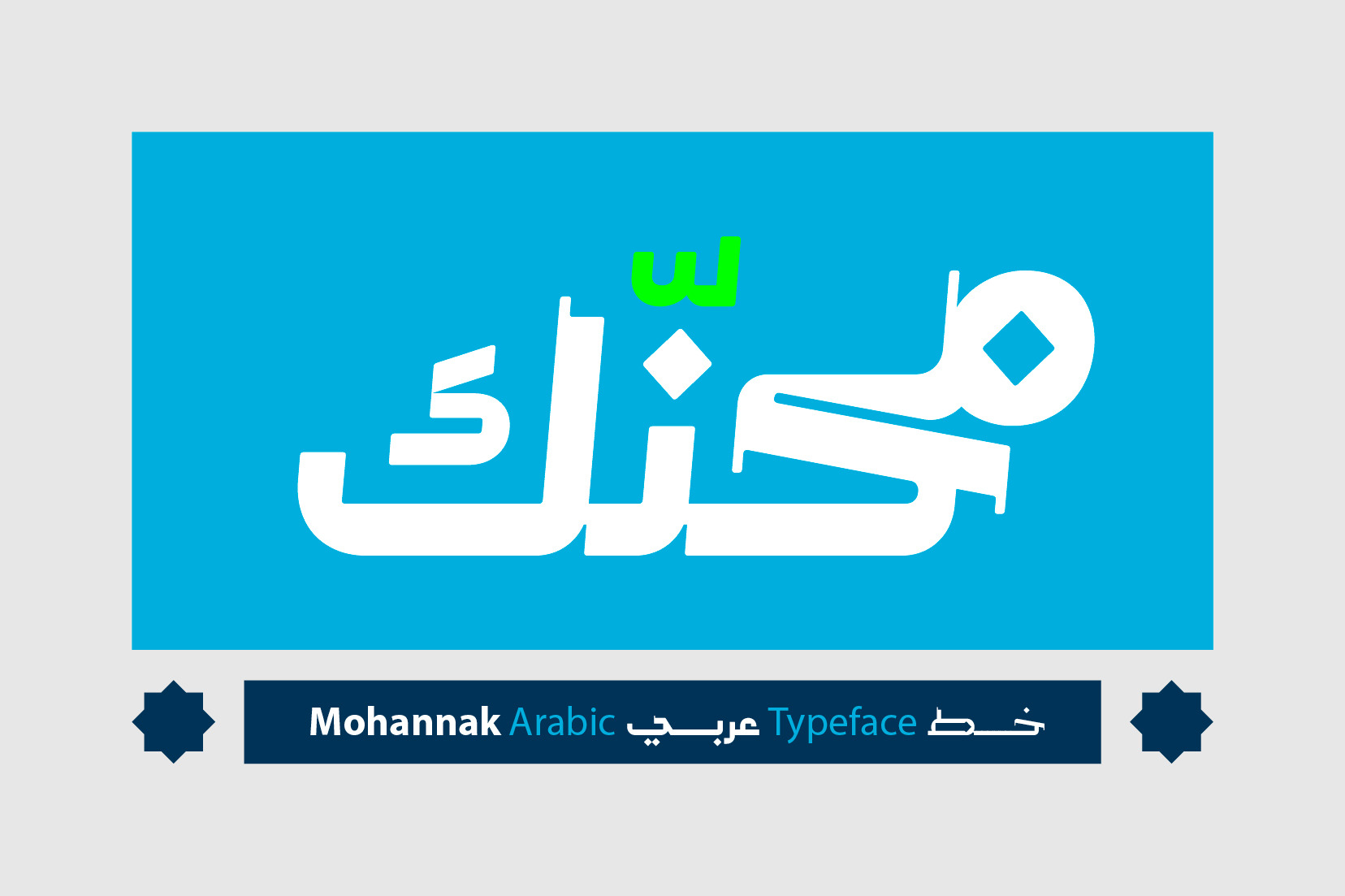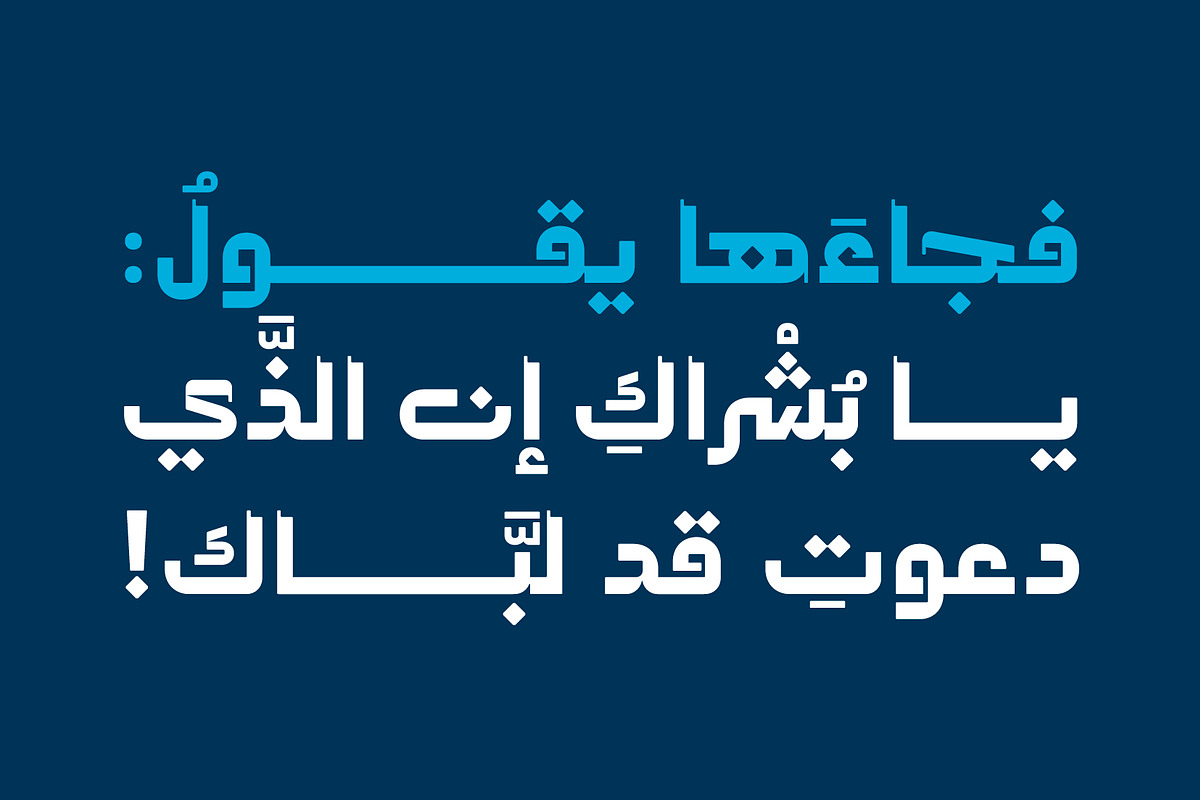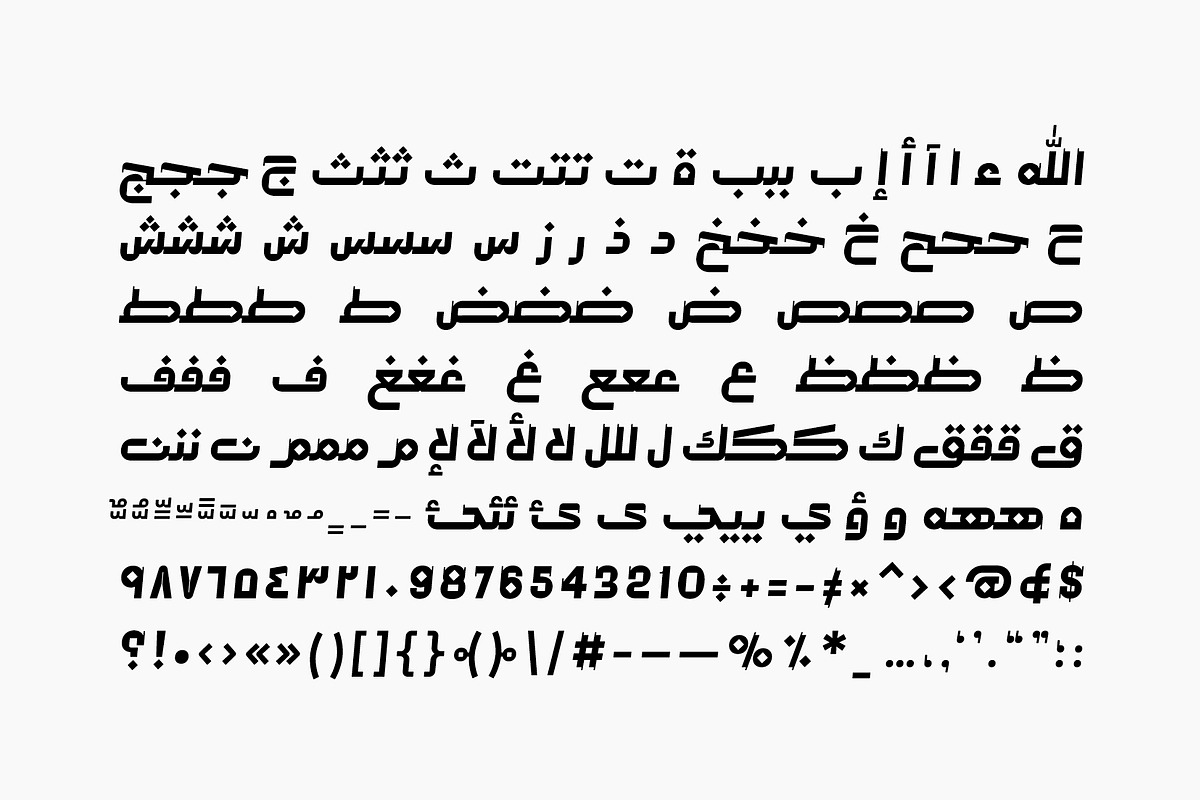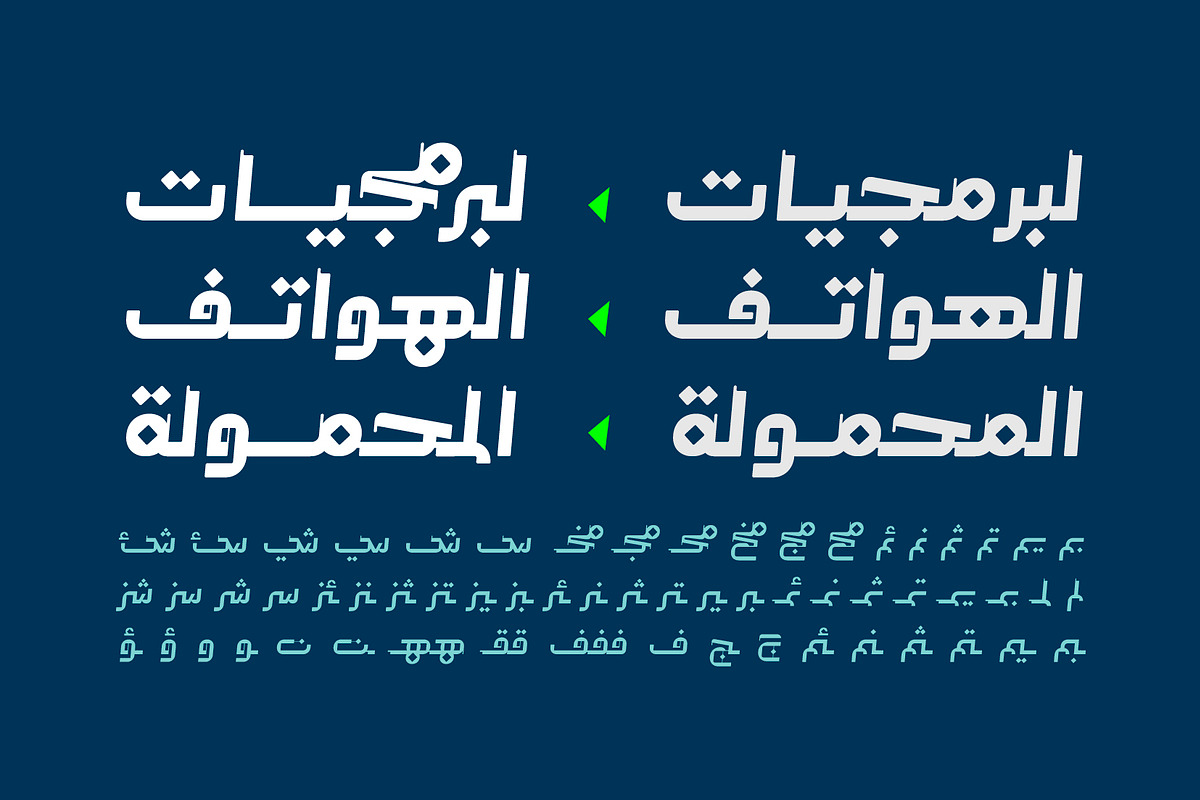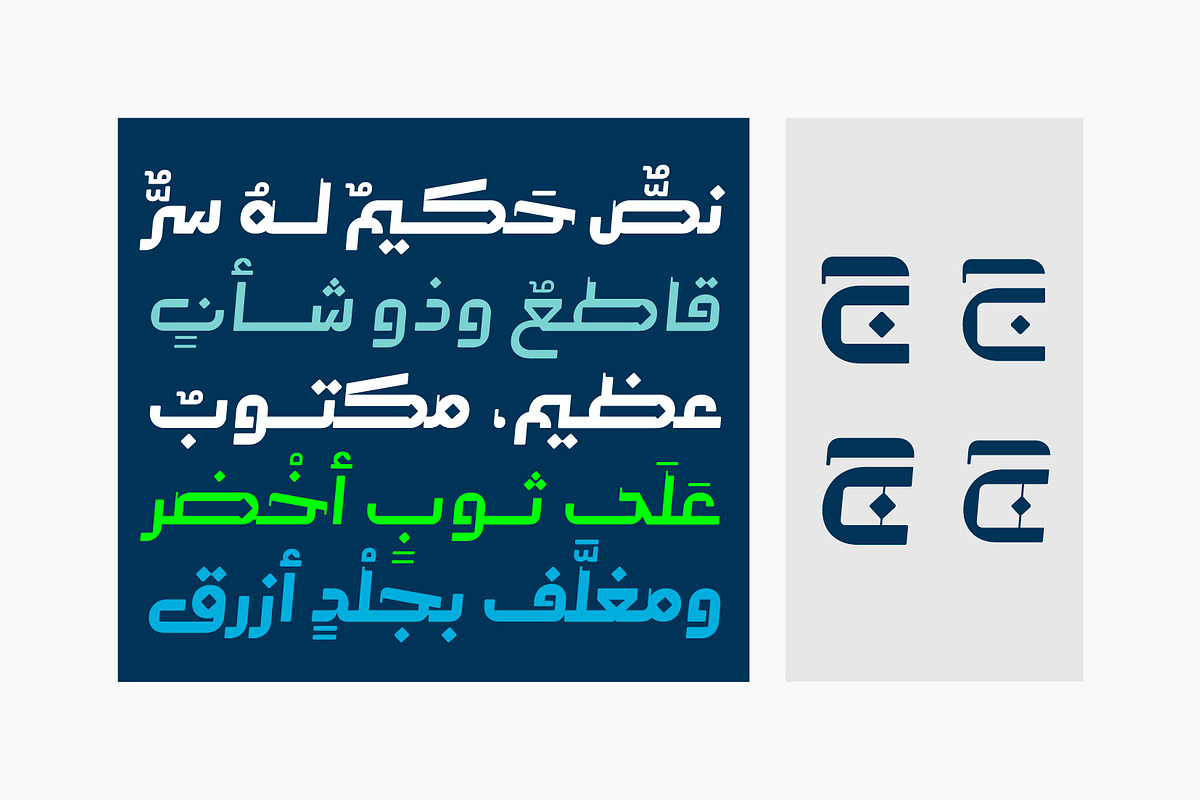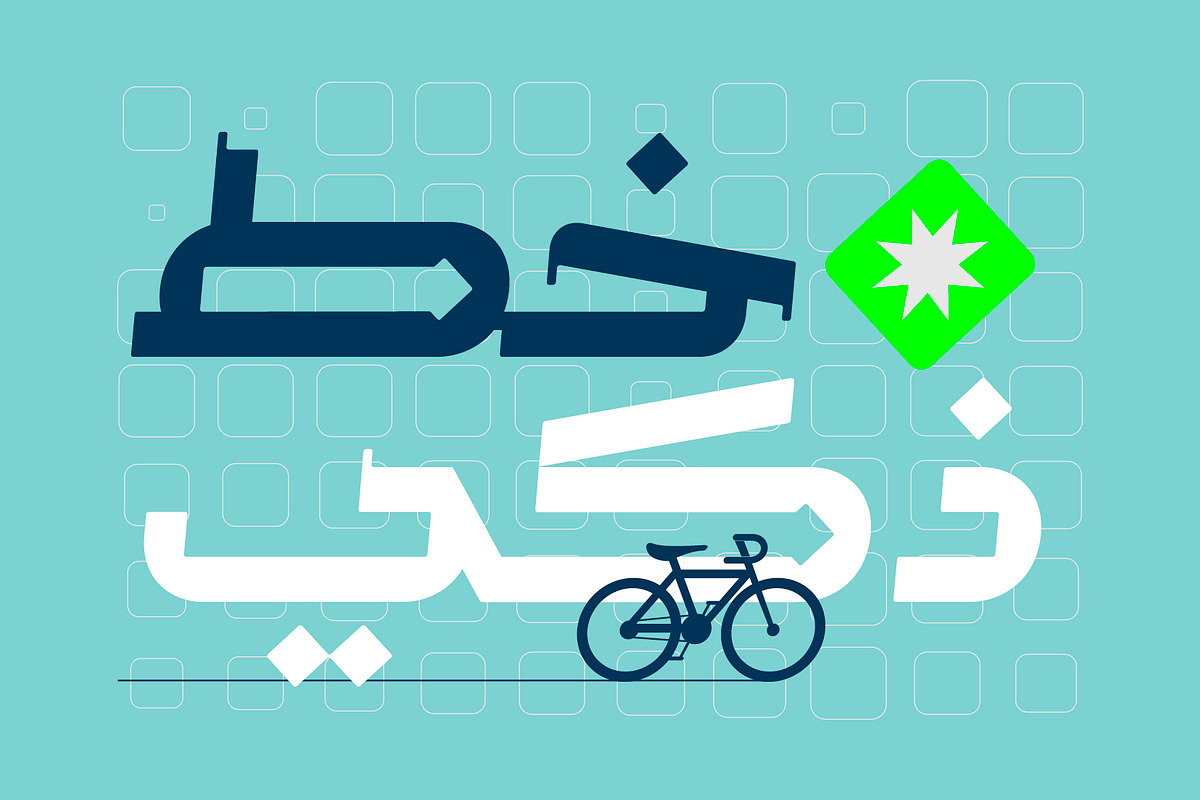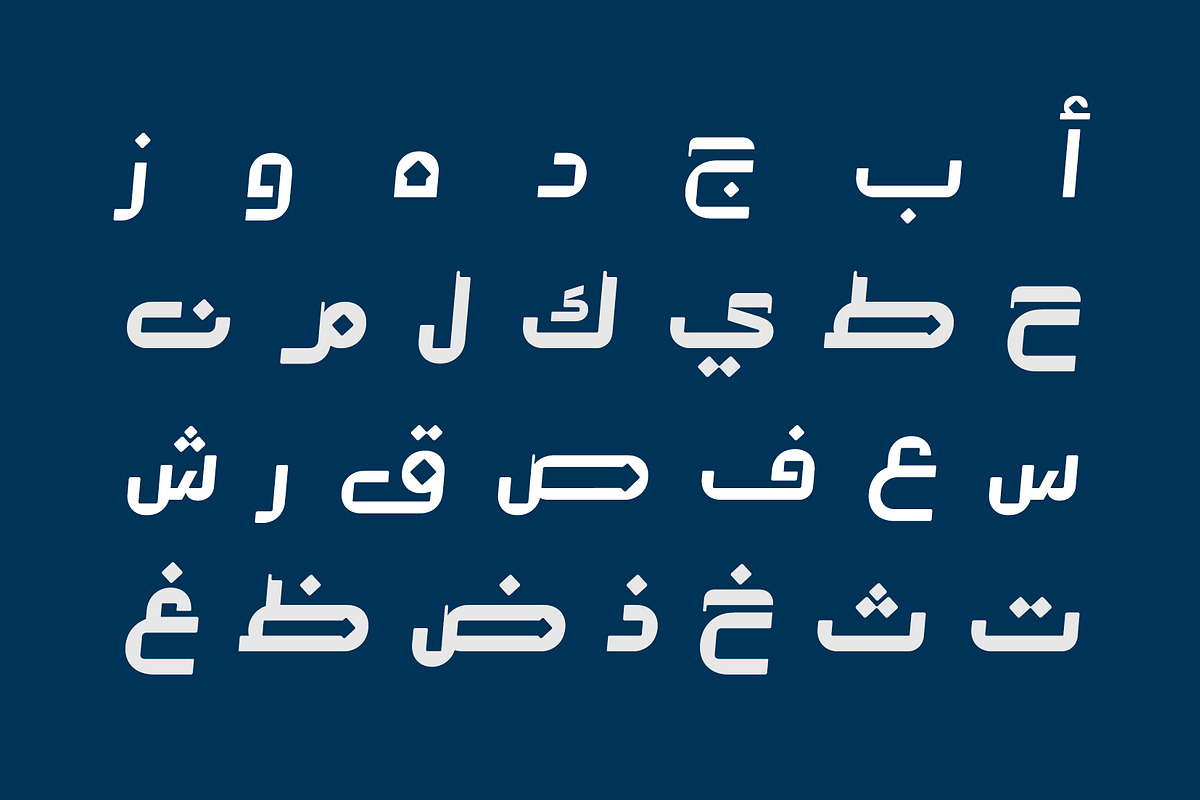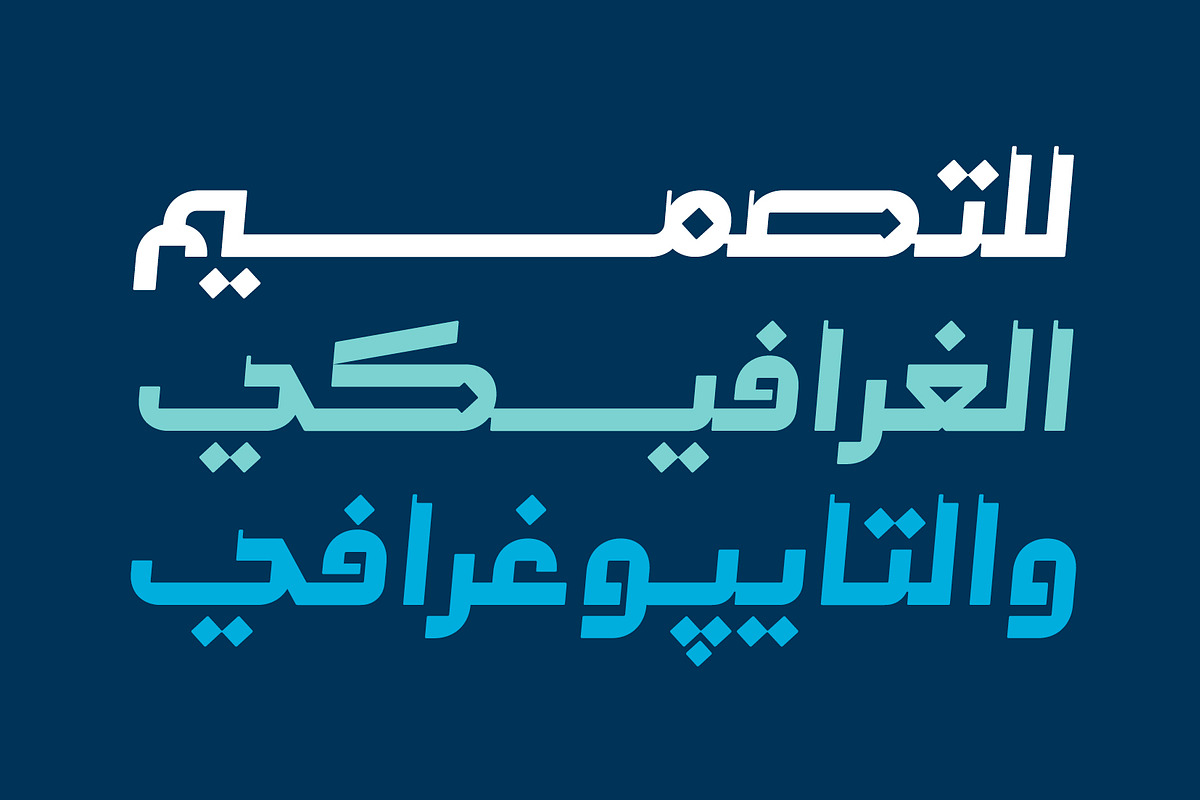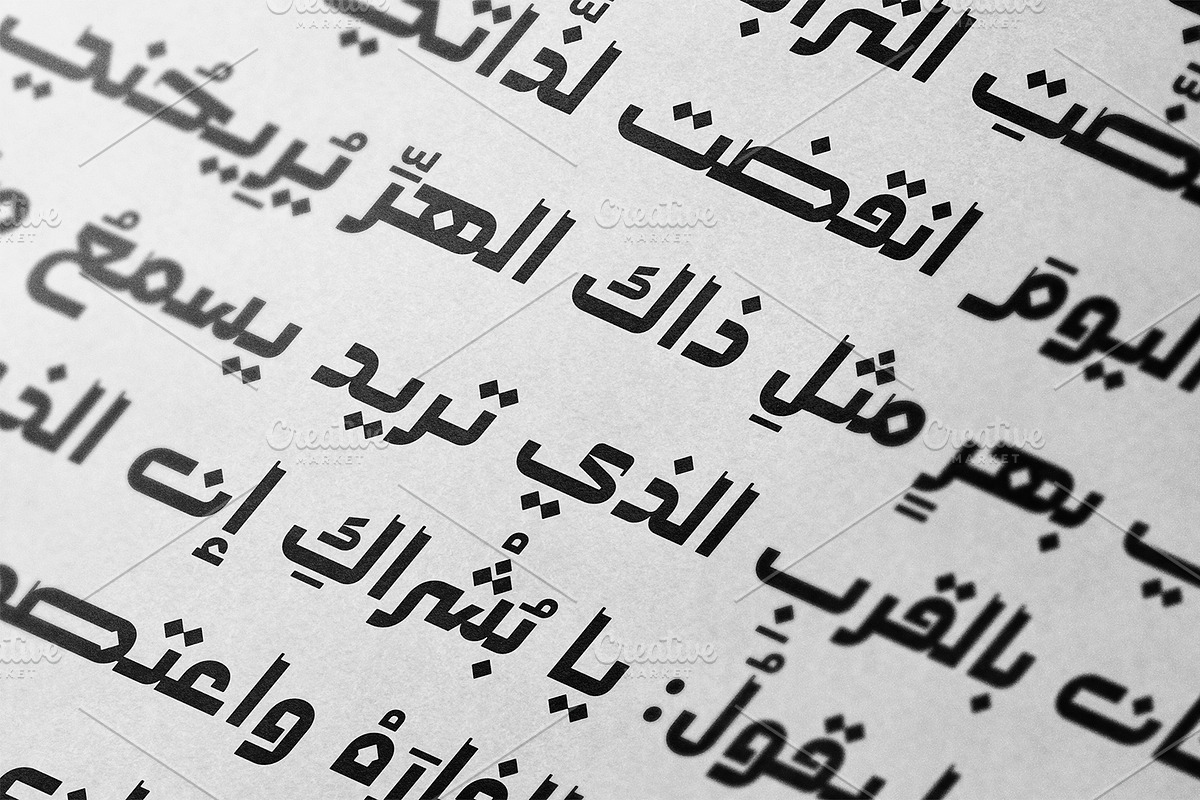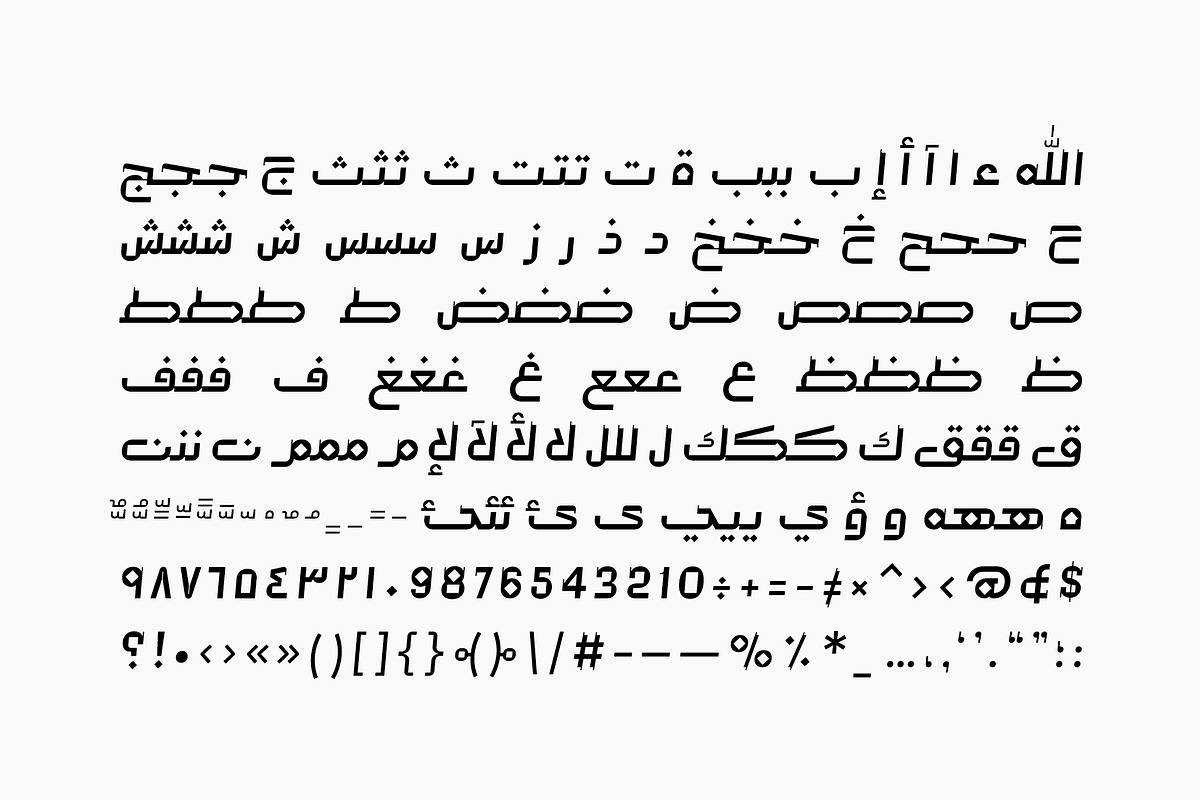
Mohannak - Arabic Typeface
Mohannak (derived from the Arabic word for "Experienced") is a contemporary typeface that reshapes traditional Arabic letterforms with geometric clarity and refined structure. Its energetic, sharply crafted characters deliver a bold, modern feel, while the interaction of forms introduces a smooth, rhythmic movement. Blending heritage with forward thinking design, Mohannak excels in branding, print layouts, modern typographic projects, and display applications. It is compatible with Windows, macOS, and mobile platforms.